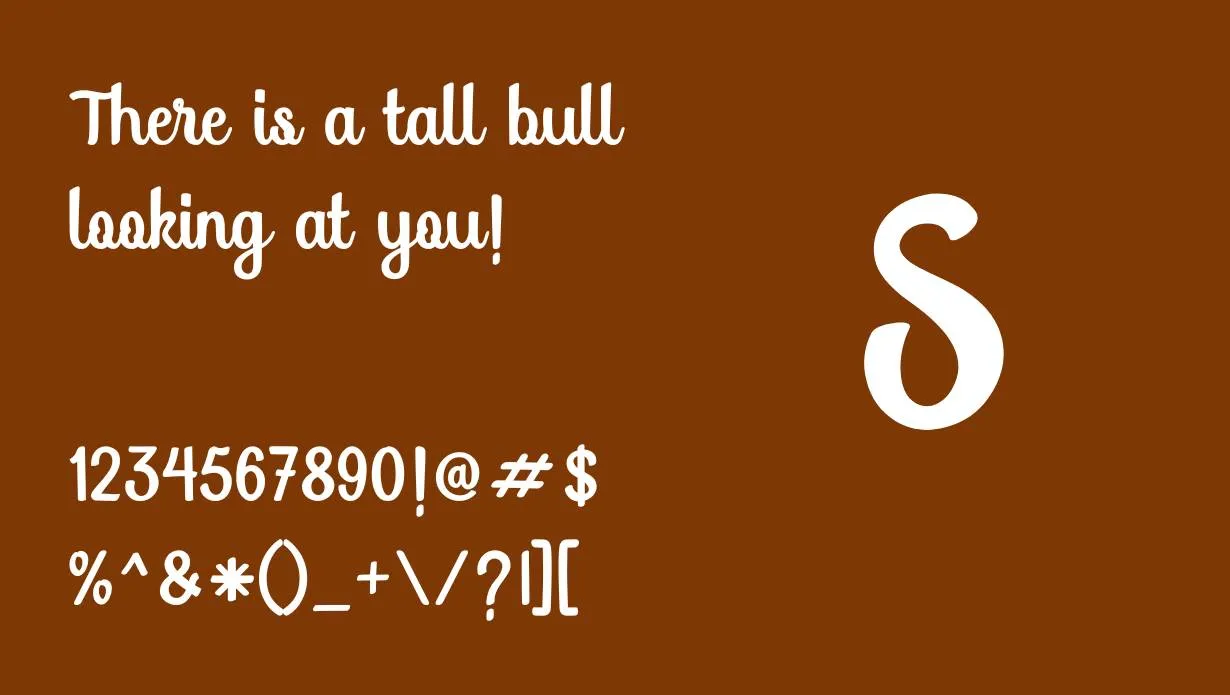
Soybeanut Script Font Free Download
This font offers a smooth and flowing style of writing that adds a personal and warm touch to words. It was designed by FHFont.This script font is reminiscent of handwritten notes, making it ideal for projects that aim to convey a sense of intimacy and individuality.
Whether used in personal correspondence, greeting cards, or creative journaling, Soybeanut Script Font brings a sense of authenticity and human connection to the written word, making it feel like a personal expression rather than just text on a page.
View of Soybeanut Script Font
| Name | Soybeanut Script Font |
| Designer | feydesign |
| Style | Handwritten |